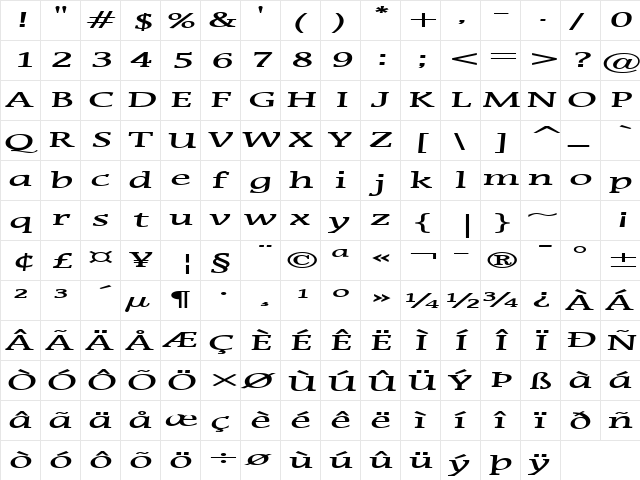
Mirror Extended Bold
Design Context for Mirror Extended Typeface
Mirror Extended takes a measured approach to typography — its balanced proportions and neutral character make it a reliable workhorse for both digital and print work. The heavy weight commands attention and anchors typographic hierarchies.